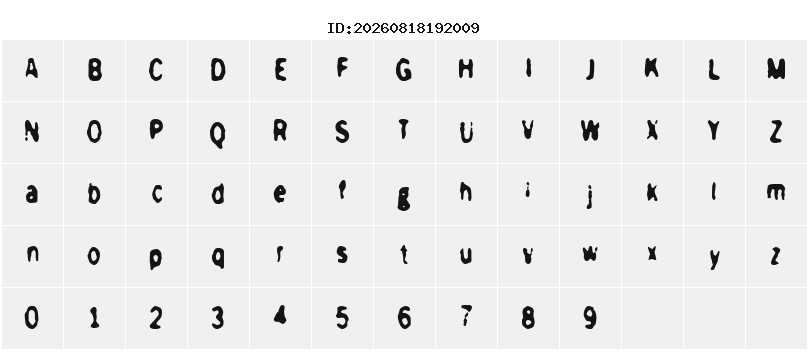
Skink Preview
• Font Name: Skink
• Full Font Name: Skink
• PostScript Name: Skink
About Skink.ttf
Skink.ttf is a modern, elegant sans-serif font designed for ultimate readability and visual harmony. Perfect for branding, headlines, web design, and print materials.